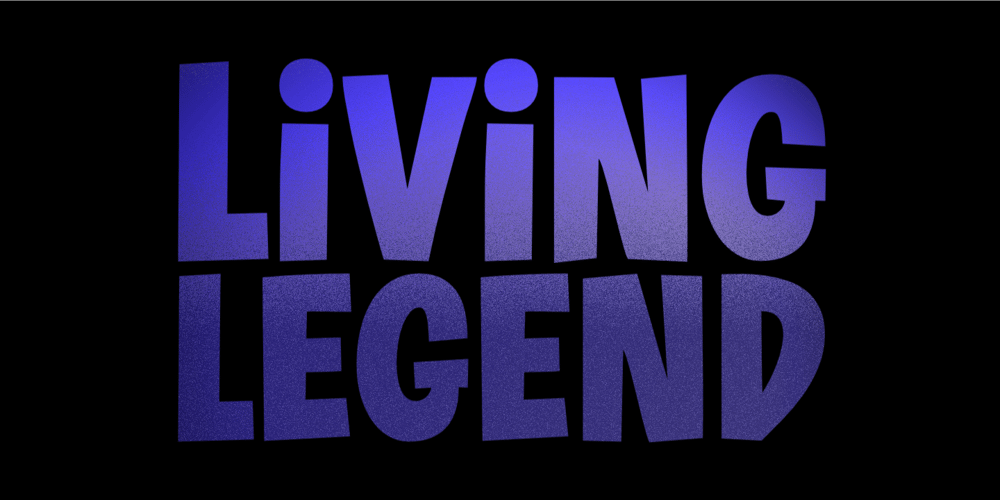
Living Legend Font Family was designed by Aldy Sidik and published by Epiclinez. Living Legend contains 1 styles and family package options. Looking to add a touch of fun and friendliness to your design? Look no further than Living Legend! This playful font is perfect for any project that needs a light-hearted feel. With its casual style, this font is easy to read and will add a fun flair and a strong impact to your work.So what’s included : Basic Latin Uppercase and Lowercase Numbers, symbols, and punctuations Multilingual Support. PUA Encoded and fully accessible without additional design software Simple Installations works on PC & Mac Thank You.